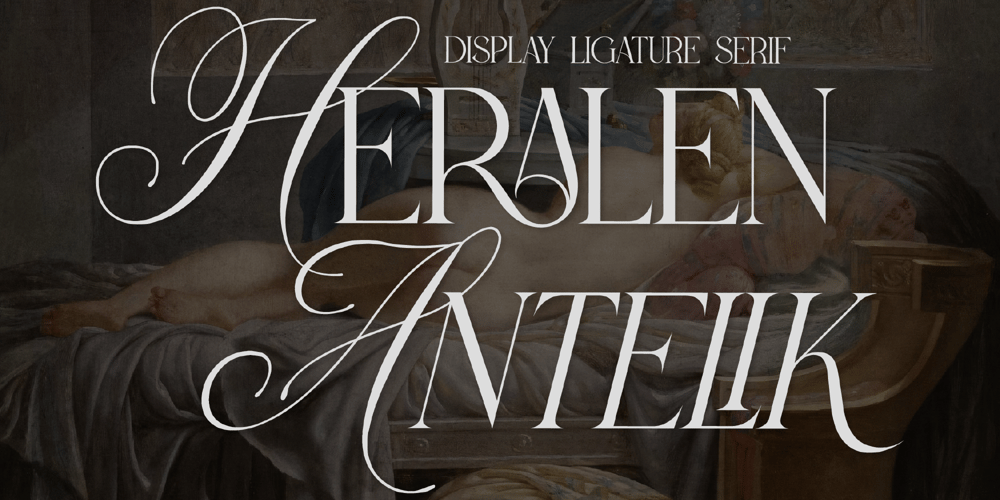
Heralen Antelik Font Family was designed by Heru Utama Putra and published by Letterena Studios. Heralen Antelik contains 2 styles and family package options. A serif modern and classic typeface that has its own unique style & modern look.This typeface is perfect for an elegant & luxury logo, book or movie title design, fashion brand, magazine, clothes, lettering, quotes, and so much more.